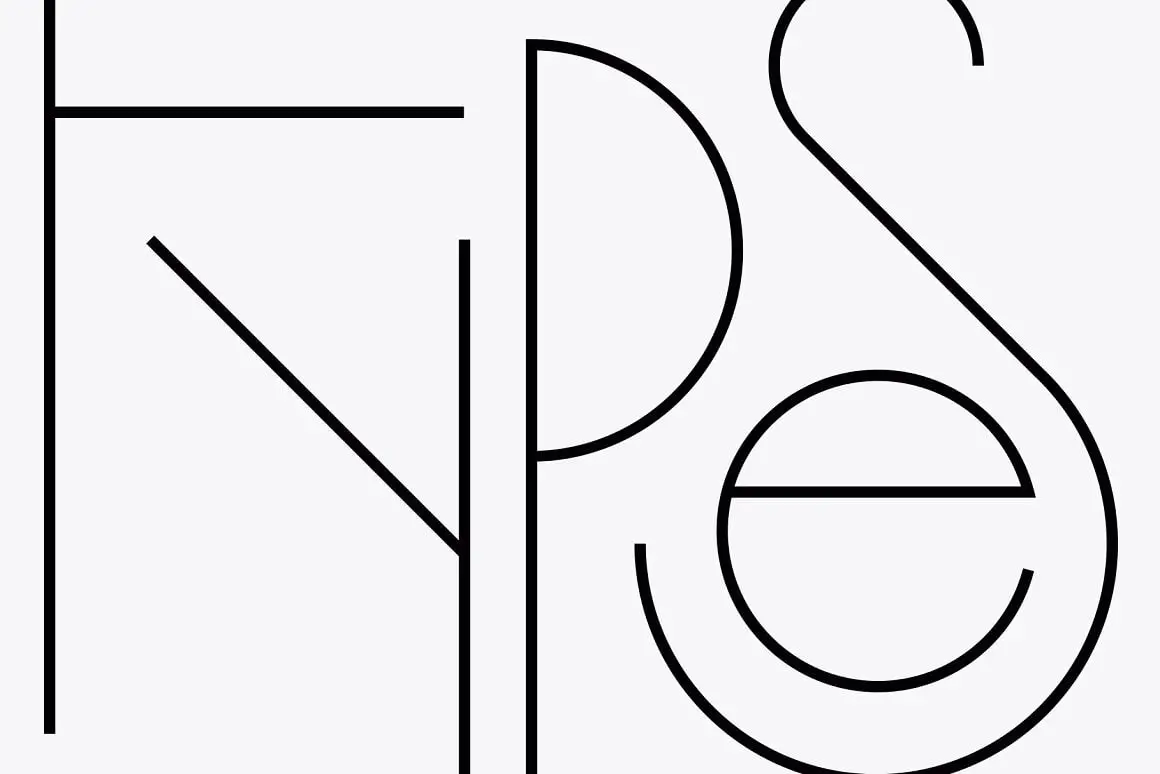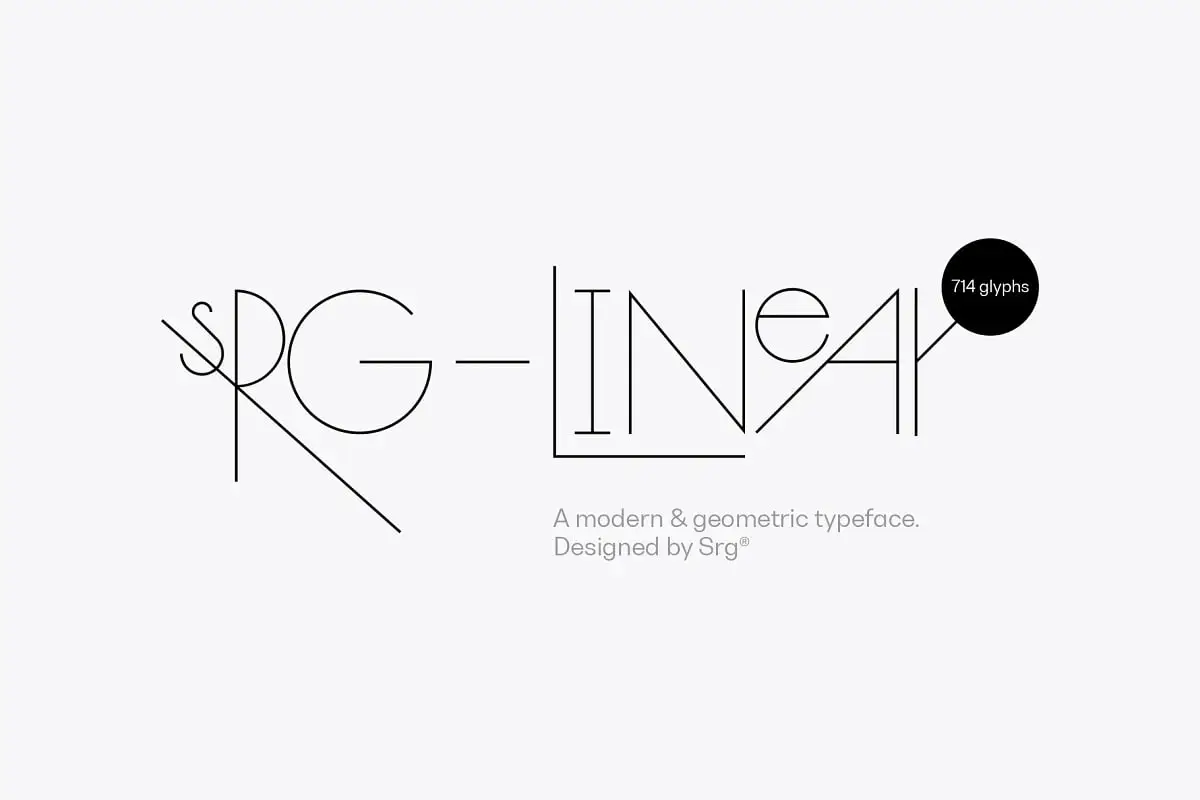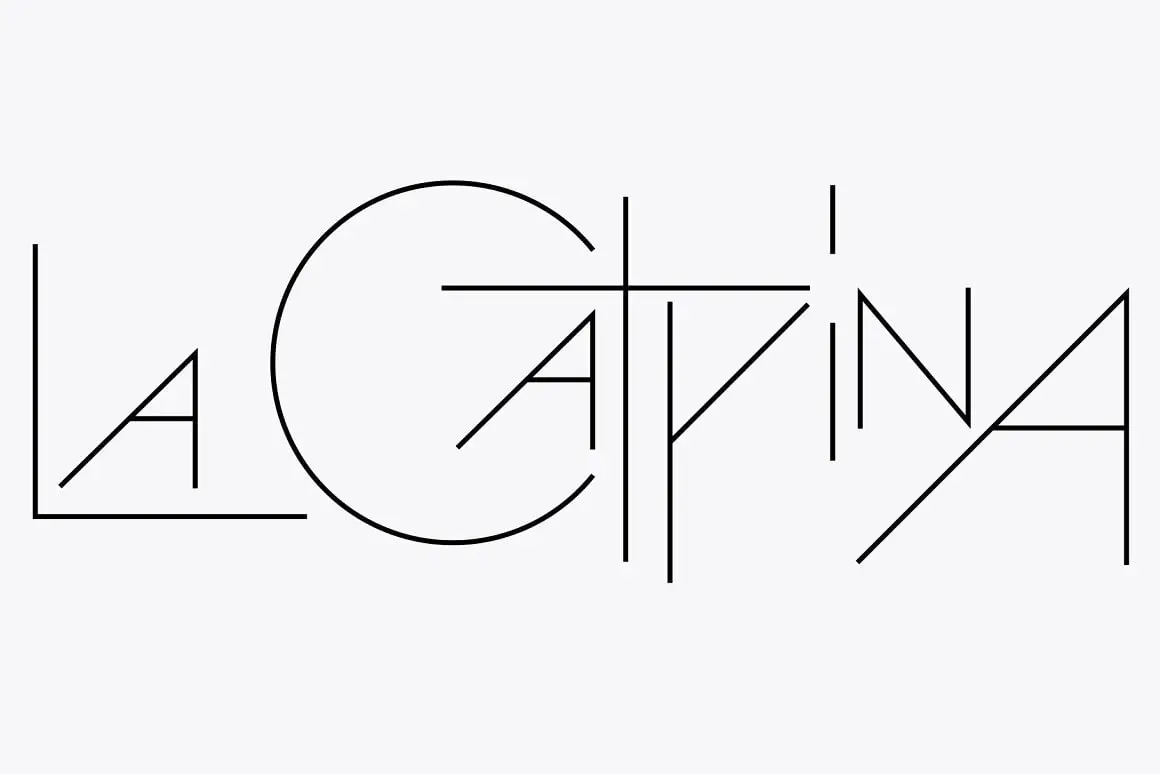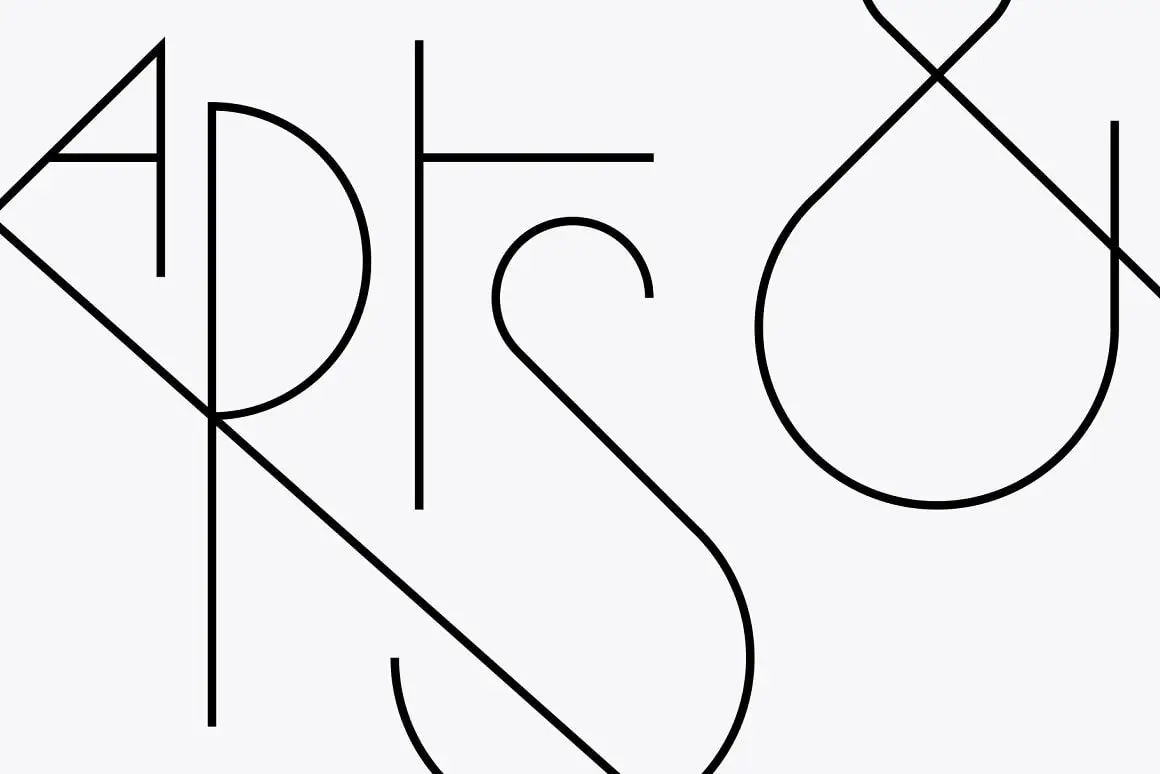
Srg Linear Font
The Srg Linear Font is a modern and versatile typeface designed for a variety of applications. With its clean lines and geometric shapes, this font is perfect for both digital and print projects.
• Available in multiple weights for flexibility
• Suitable for headlines, body text, and branding
Ideal for branding, logos, web design, and user interfaces, this font adds a modern touch to any project.